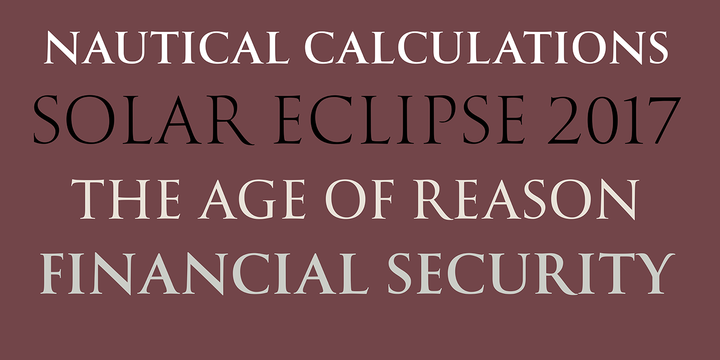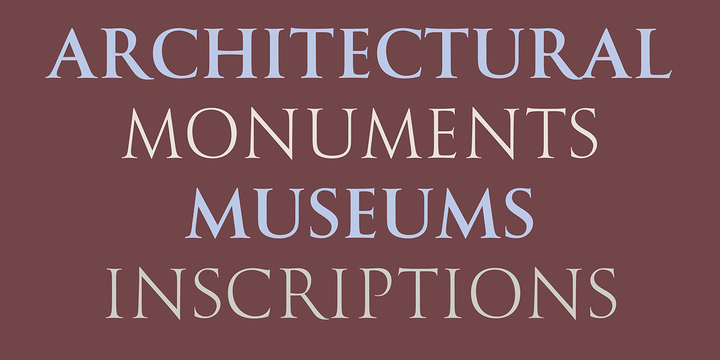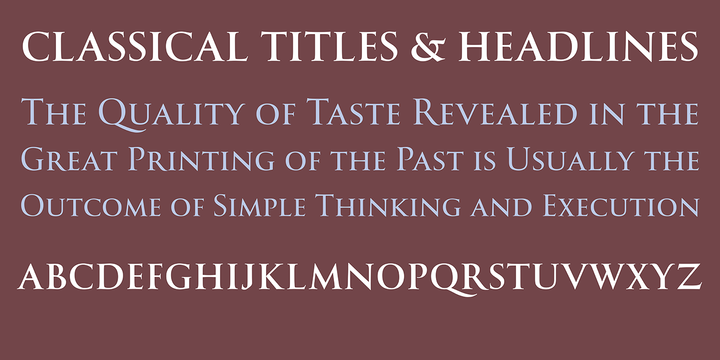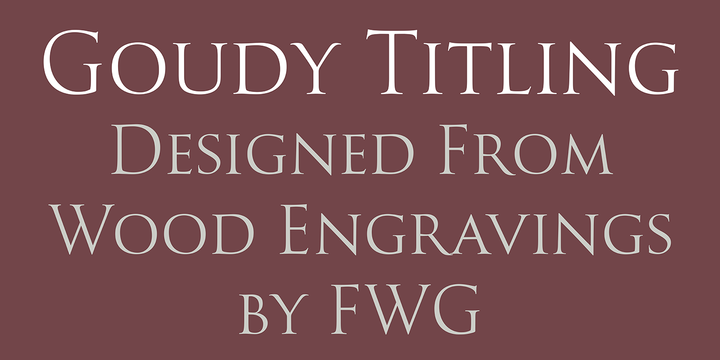
Goudy Titling was designed by Steve Matteson. It is based on the 2" wood engravings Frederic Goudy made for his book The Trajan Capitals - a seminal book about the history of the Roman letter.
These letterforms predate the work of Father Catichs exhaustive study of the Trajan Column and, while remarkably faithful to the inscription, have Goudys interpretive fingerprints.